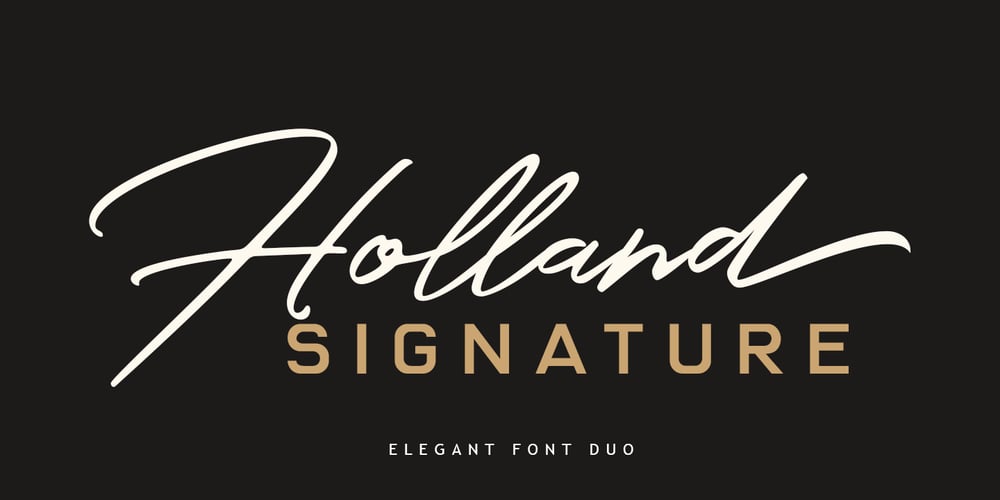
Holland Signature Font Family was designed by Muhammad Sirojuddin and published by Lettersiro. Holland Signature contains 2 styles and family package options. Holland Script is modern script that perfect for photography, signature, branding. It is so beautiful and classy, simple but strongWhat’s include: Ligature Stylistic Alternate Initial form for lowercase Swash for Ending